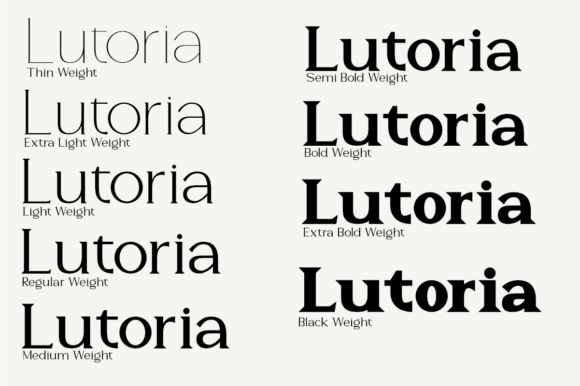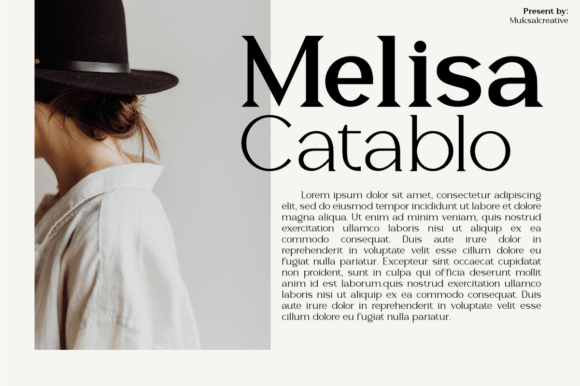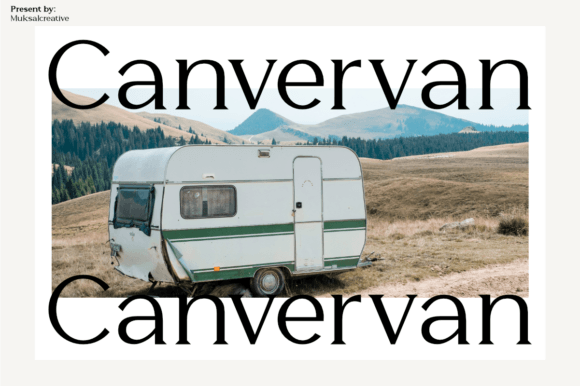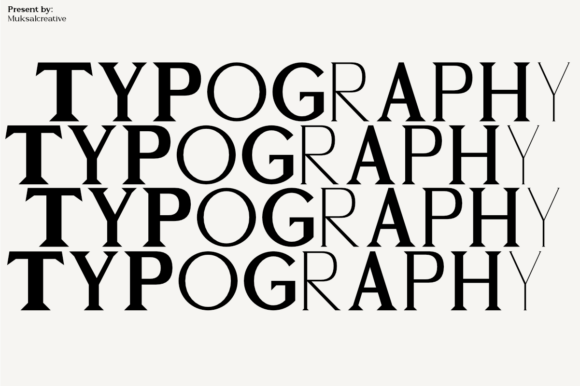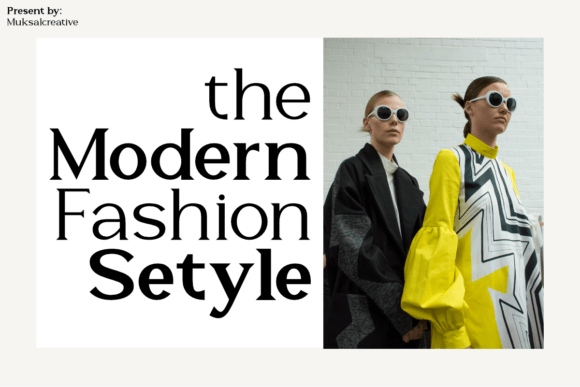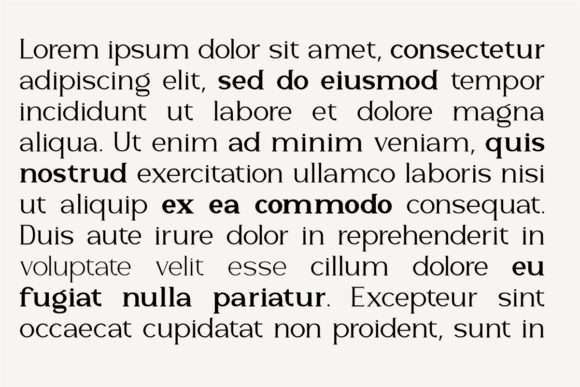
Introduction to Lutoria Serif Font
Lutoria Serif is a modern and elegant serif font family designed with sophistication and versatility in mind.
Featuring 9 styles, from the delicate Thin to the bold and striking Black, Lutoria Serif is perfect for various design needs, including editorial layouts, branding projects, and digital typography Its modern character brings a contemporary touch, while the serif details maintain a classic and professional feel.
Key Features of Lutoria Serif Font
Why Choose Lutoria Serif Font?
Lutoria Serif Font offers exceptional quality and versatility, making it a valuable addition to your design toolkit. Whether you’re creating for personal projects or commercial use, Lutoria Serif Font delivers professional results.